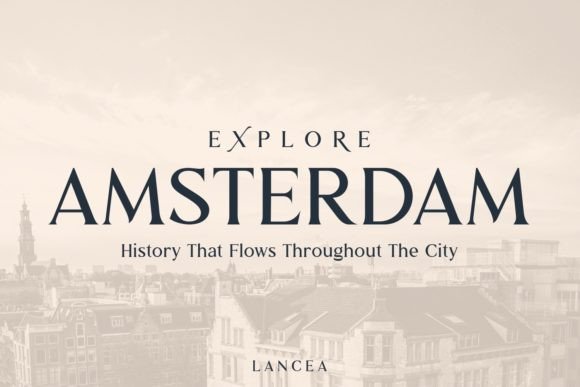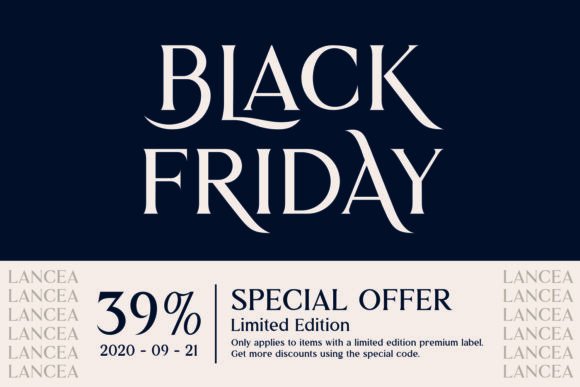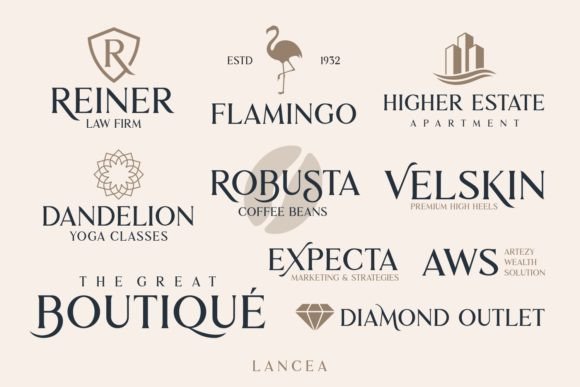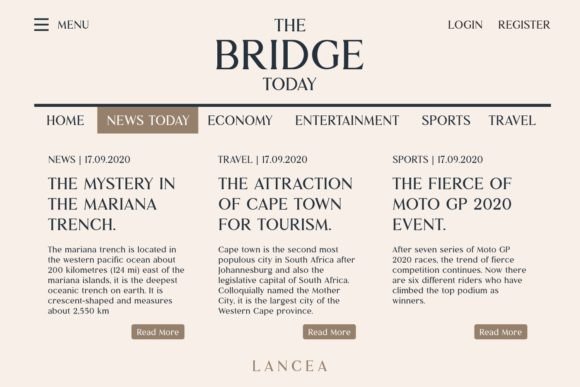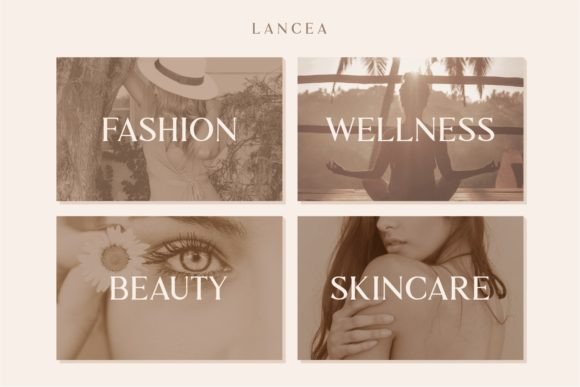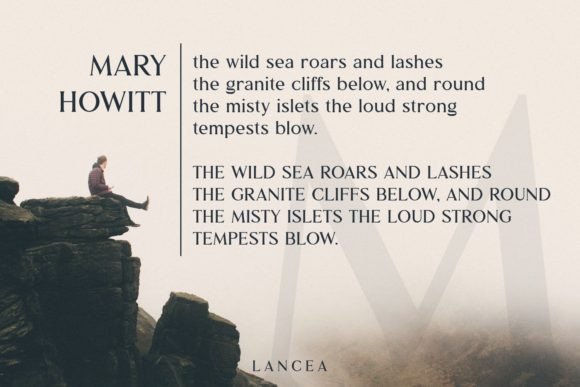
Introduction to Lancea Font
Have you ever been working on a design project and felt like you’re missing that perfect font to elevate it to the next level? You’re not alone. We’ve all been there, scouring the internet for the perfect design resource to make our creative project stand out. But what if we told you that we’ve found a font that’s sure to impress, the Lancea Font.
This high-quality font is a game-changer for designers, offering a sophisticated feel with a sleek and clean accent that’s perfect for luxury brand logos, journals, business cards, headlines, and social media posts. With its unique blend of medieval roman writing and sharpness, the Lancea Font is sure to make your designs pop.
- Unique characteristic: Elegant and modern design, perfect for creating a professional and sophisticated look in any creative project
Honest Review: Lancea Font
What works well about Lancea Font is its high quality and versatility. It comes in a range of styles and weights, making it perfect for use in various design contexts. The font also features a transparent background, which allows for seamless integration with any design.
- ✨ Great for creative projects requiring a modern touch
- ✨ Versatile and suitable for various design contexts
- ✨ High quality and professional-looking
While Lancea Font is a solid choice, there are some limitations to consider. The font may not be suitable for use in very small sizes, as the details can become lost. Additionally, some users may find the font’s style a bit too minimalist for their taste.
Overall, I’m impressed with Lancea Font and would definitely recommend it to fellow designers. Its high quality, versatility, and transparent background make it a valuable addition to any design resource library.
- ⚠️ May not be suitable for very small sizes
- ⚠️ May not appeal to designers preferring more ornate styles
Lancea Font is perfect for creative projects such as graphic design, branding, and digital art. Its versatility makes it suitable for various industries, from fashion to technology.